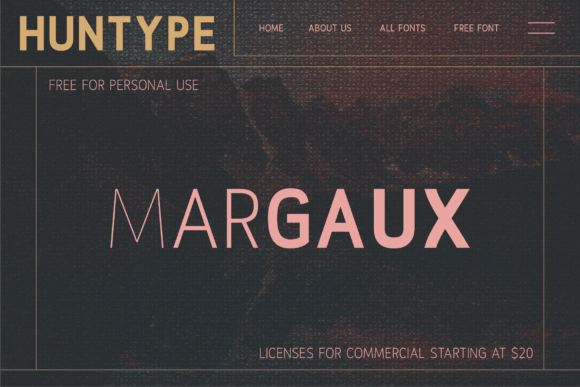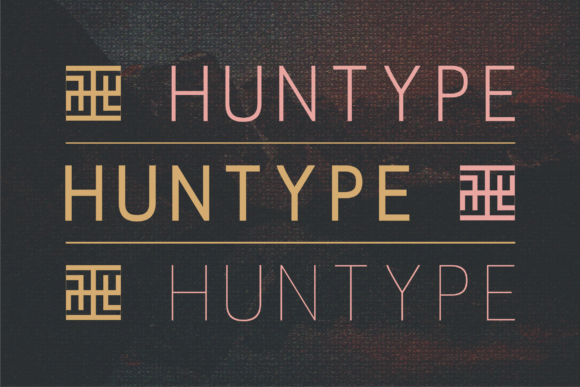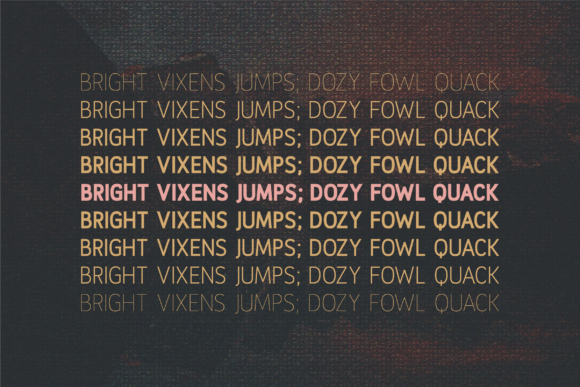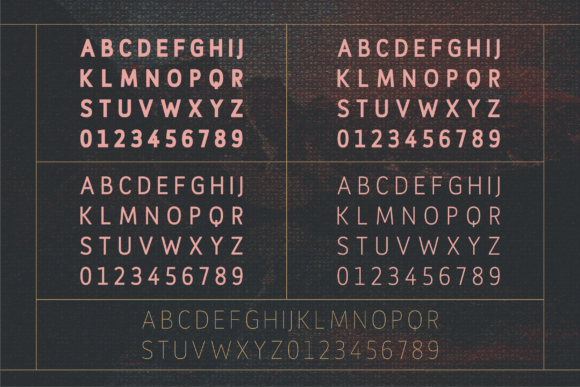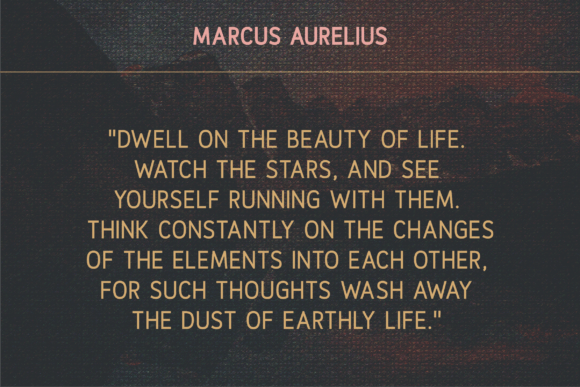
Introduction to Margaux Font
Introducing Margaux Sans Serif Font Family, a meticulously crafted font family that epitomizes elegance, modernity, and versatility.
With its five distinct weights—THIN, LIGHT, REGULAR, BOLD, and BLACK Margaux Font Family offers a wide range of creative possibilities, making it the perfect choice for designers and content creators.
Margaux Font offers exceptional quality and versatility, making it a valuable addition to your design toolkit. Whether you’re creating for personal projects or commercial use, Margaux Font delivers professional results.